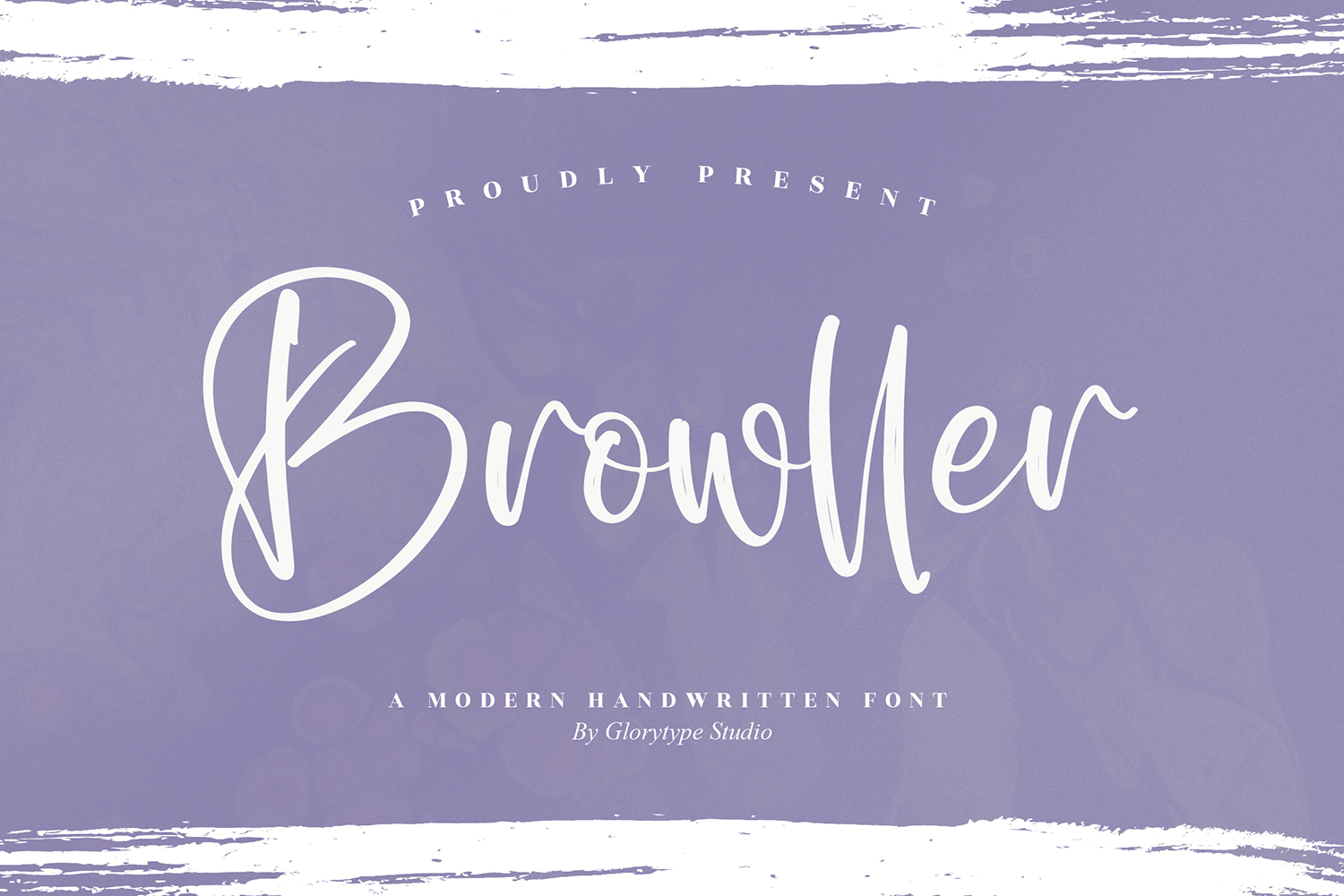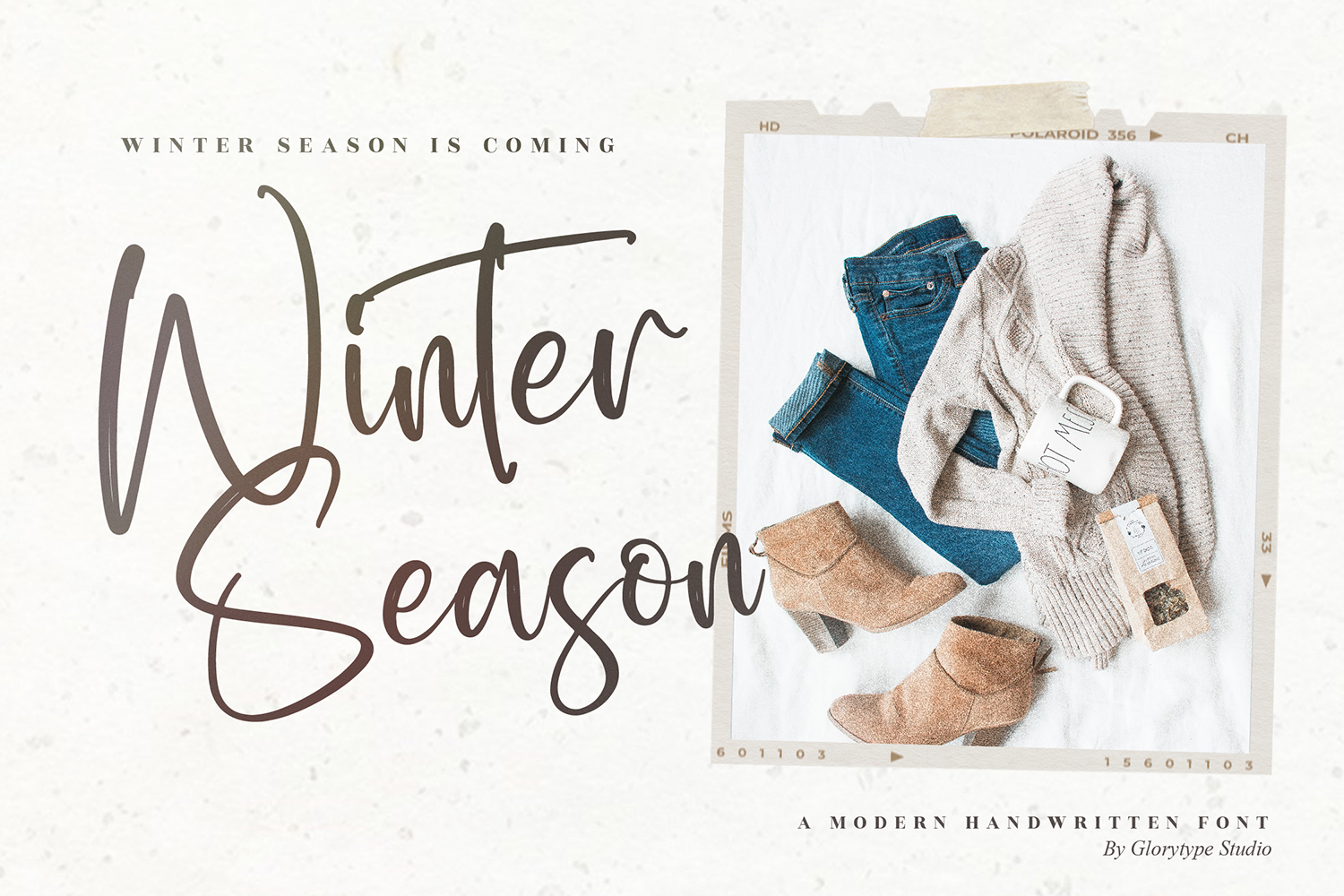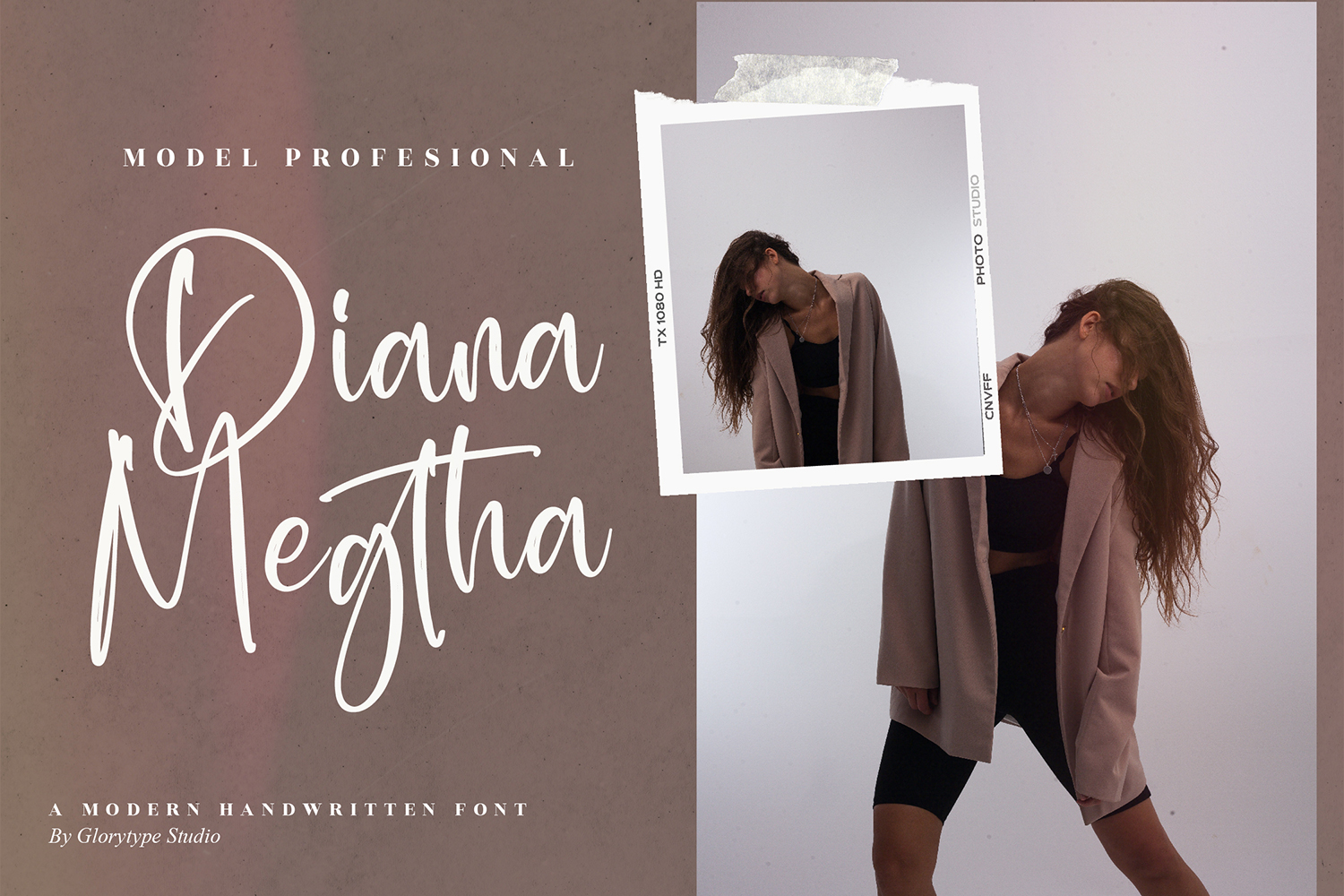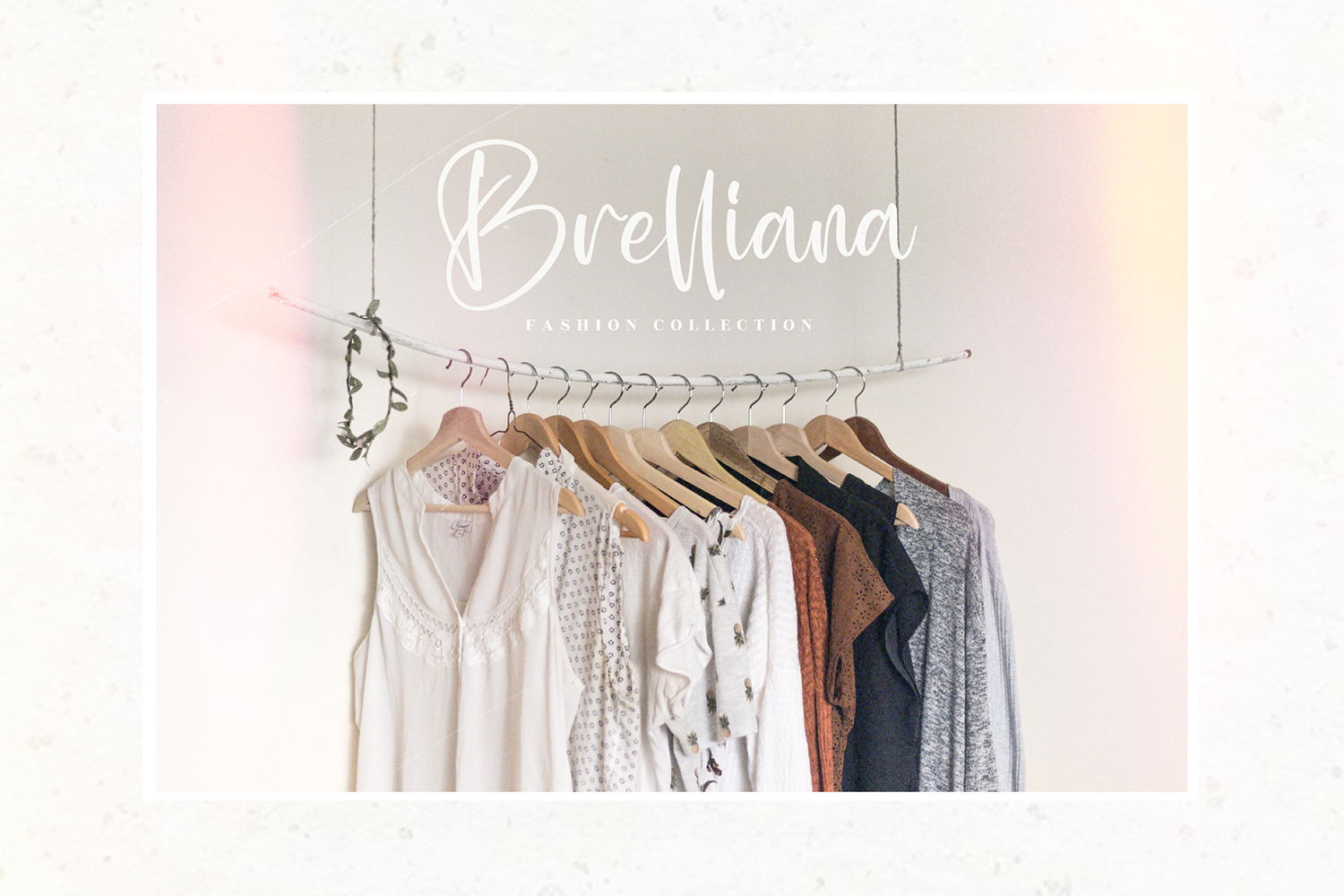
Browller Free Font
Browller Free Font is an interesting modern beautiful handwritten font that simulates detailed brush writing and is very suitable for creating various unique design projects that require a scripted font. These can be posters, wedding invitations, cards, branding, flyer prints, and more. If you wish to access more features and use them for commercial work please buy the full version.